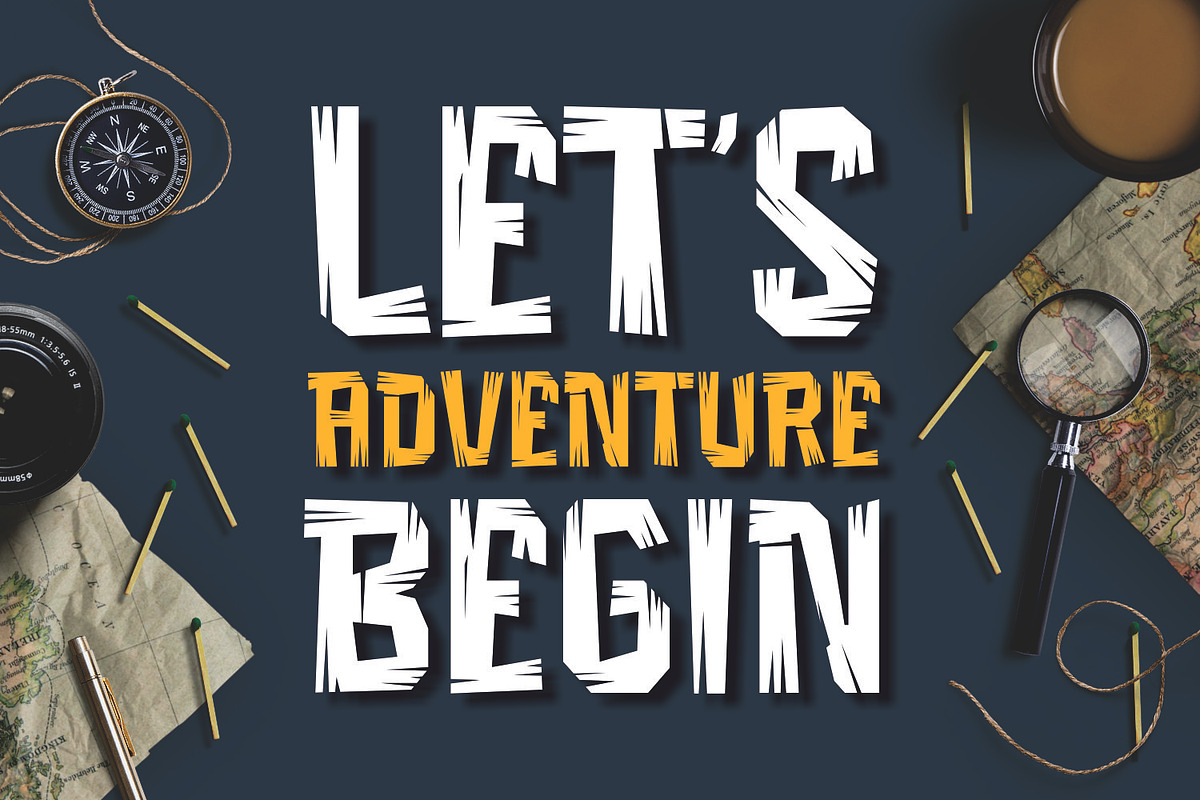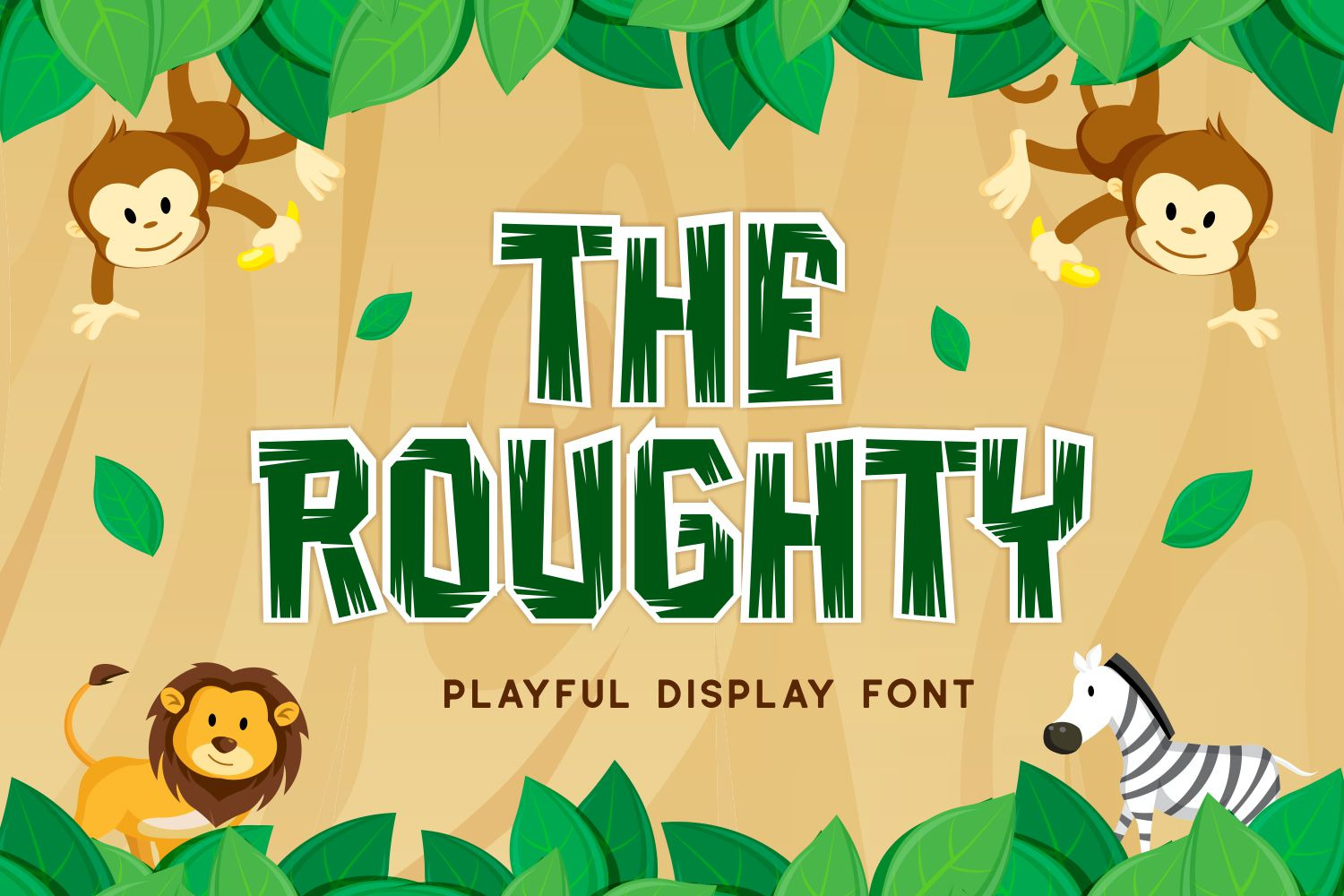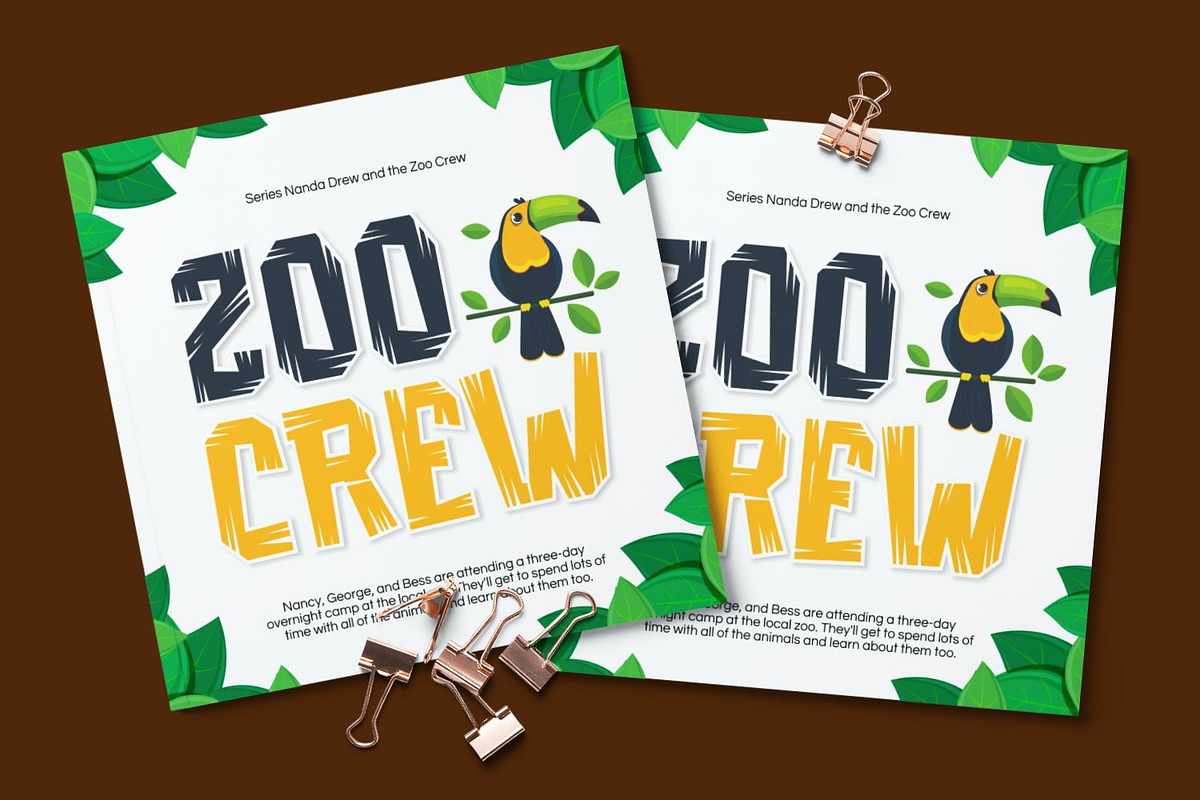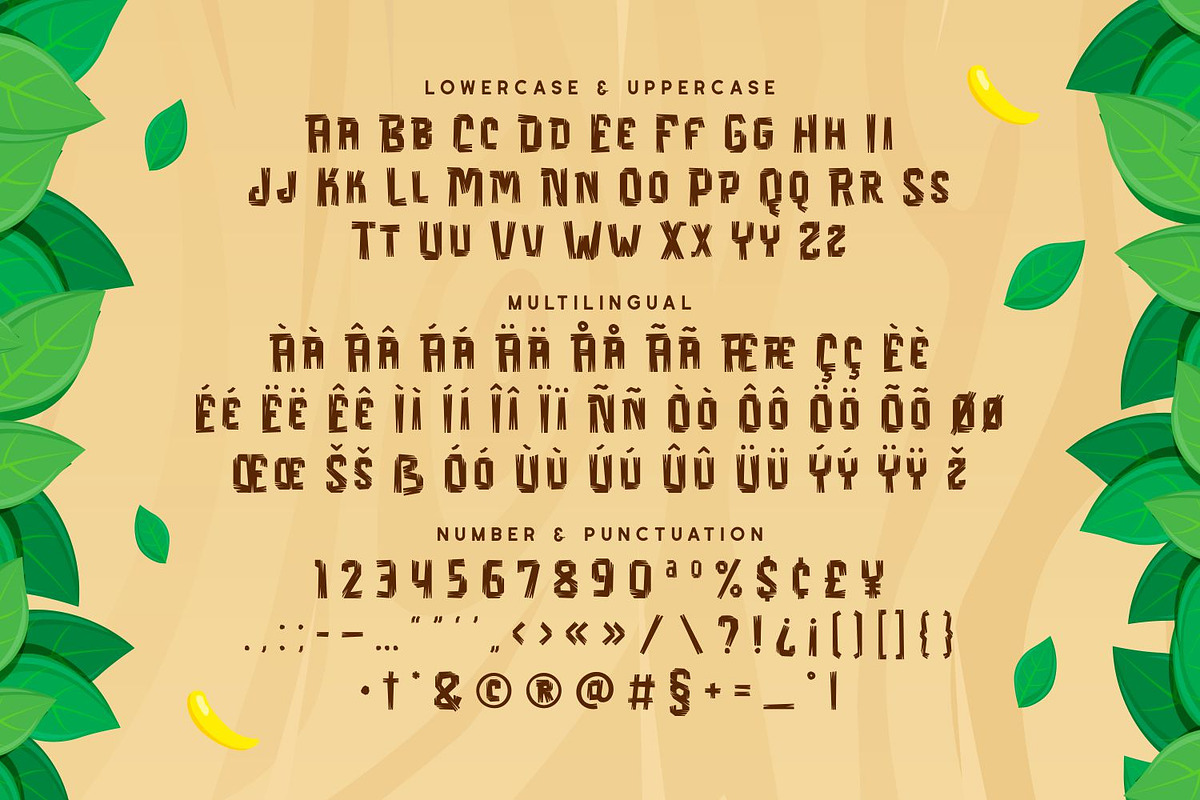
Roughty - Decorative Playful Font
Roughty is a adventurous and decorative playful font designed to capture the spirit of exploration. This font have a rough, textured, and slightly distressed appearance, mimicking a woodcut style. The font features jagged edges and irregular, giving it a rugged, adventurous, and slightly vintage feel.
Roughty perfect for children's books, zoo or safari themes, adventure branding, posters, games, adventure themed brand, and creative jungle aesthetic.
Ton of Glyphs
Uppercase and Lowecase Characters.
Numerals and Punctuations.
Alternates and Ligatures.
Multilingual Support.